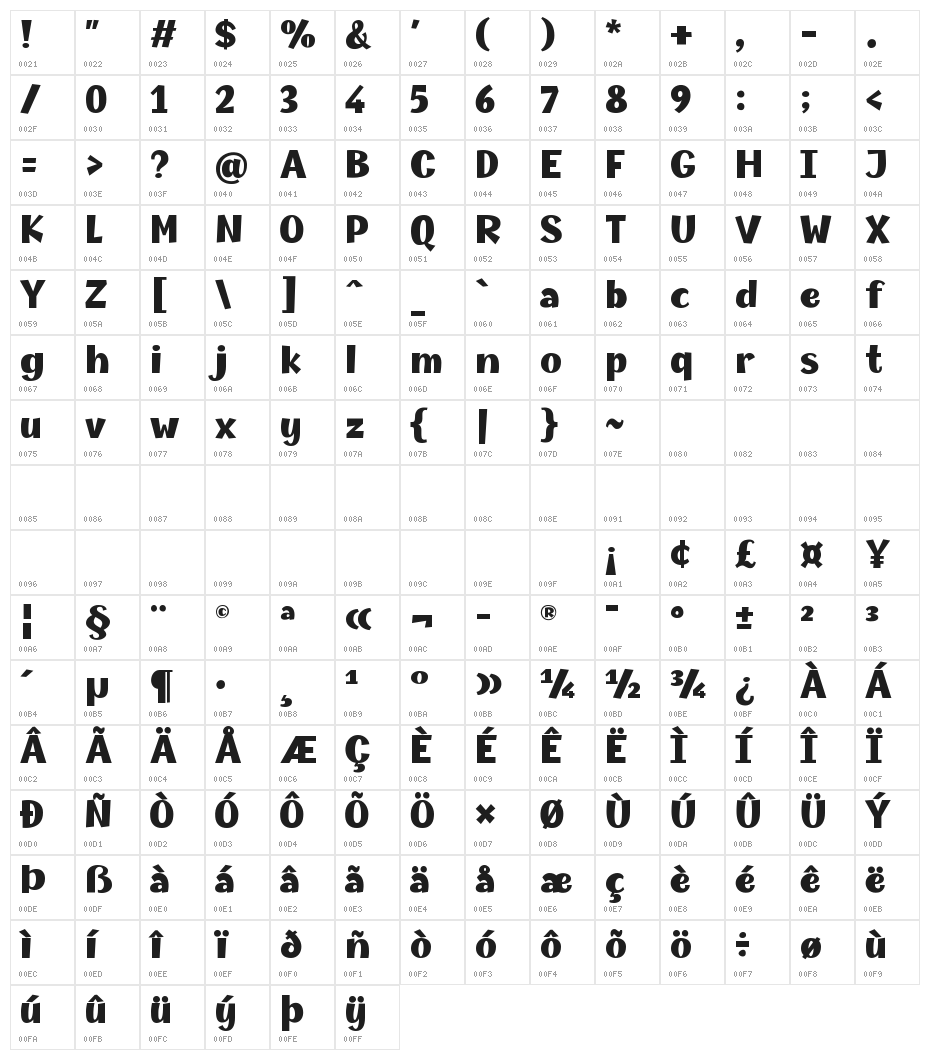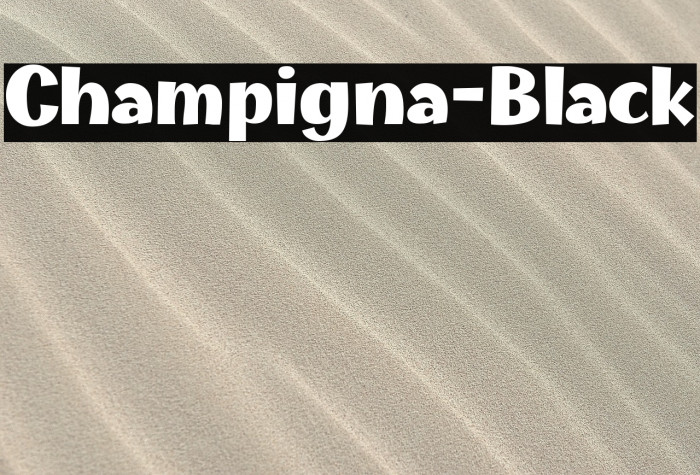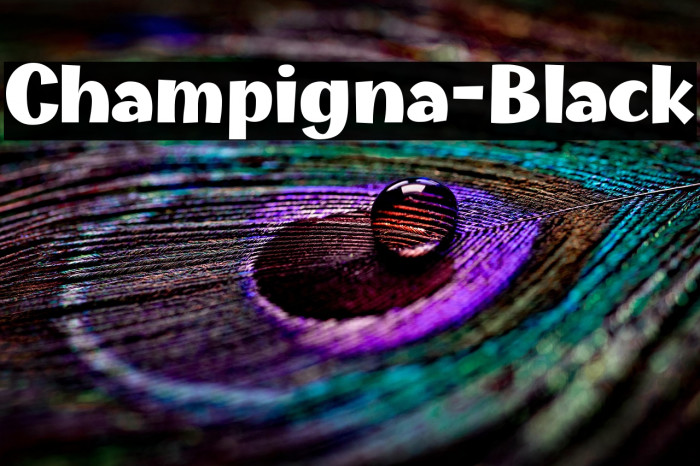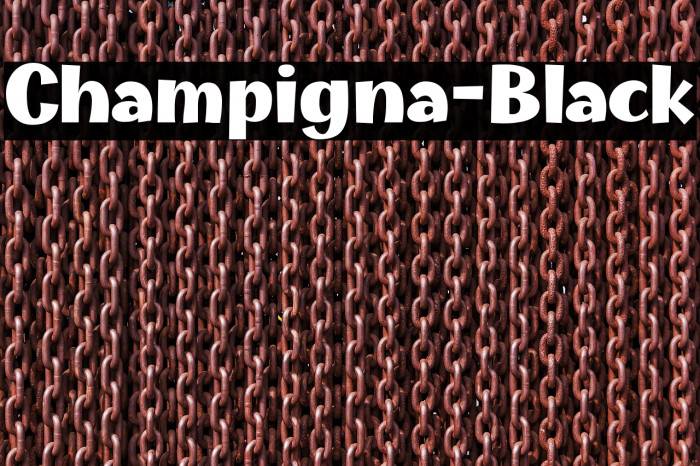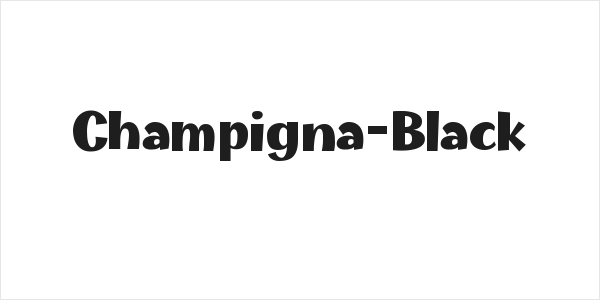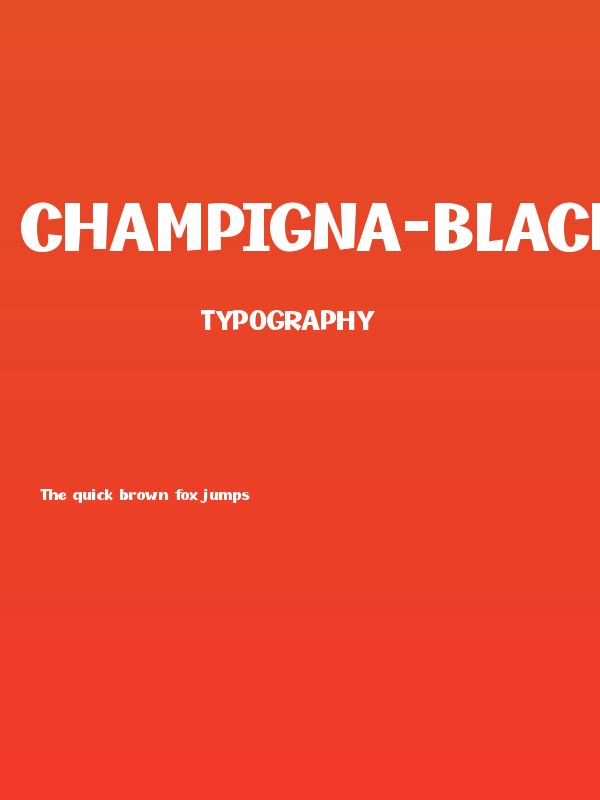
Champigna-Black Font
Champigna-Black Description
This font features bold, rounded characters with a playful and dynamic appearance. The uppercase letters are robust and slightly condensed, giving them a strong presence. The lowercase letters maintain a consistent style with a slight slant, adding a touch of movement and energy. The numerals are equally bold, ensuring readability and impact. Special characters are designed with the same boldness, providing a cohesive look across all glyphs. The overall style is modern and slightly whimsical, making it suitable for creative and eye-catching designs.
Overall StyleModern, Playful
Proposed ProjectsIdeal for branding, posters, headlines, and any project requiring a bold and playful aesthetic.